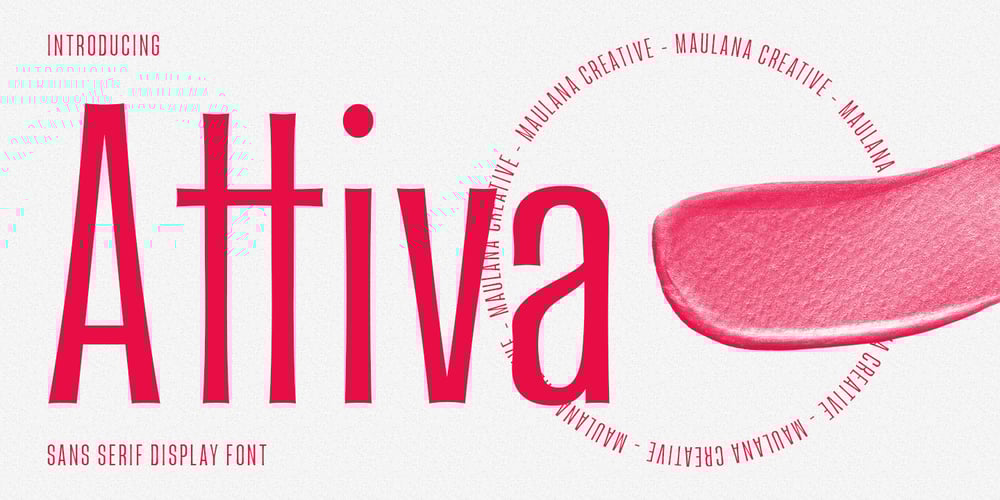
MC Attiva Font Family was designed by Gilang Maulana and published by Maulana Creative. MC Attiva contains 1 styles and family package options. Attiva is a modern flare sans serif Display font. Regular stroke, fun character with a bit of ligatures and alternates. To give you an extra creative work. Attiva font support multilingual more than 100+ language. This font is good for logo design, Social media, Movie Titles, Books Titles, a short text even a long text letter and good for your secondary text font with script or serif. Make a stunning work with Attiva font. Cheers, Maulana Creative